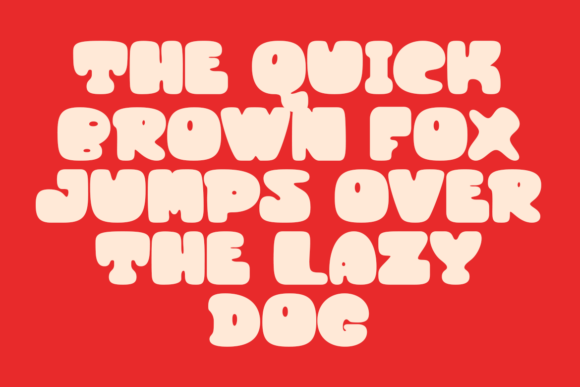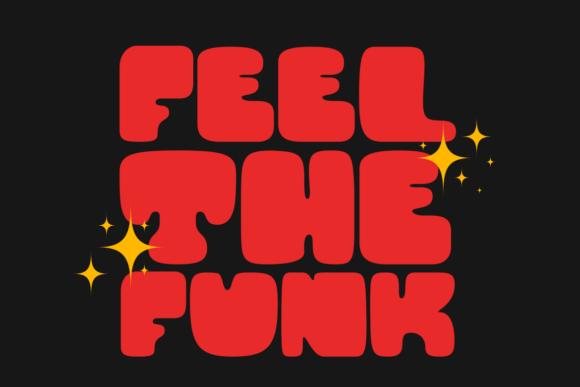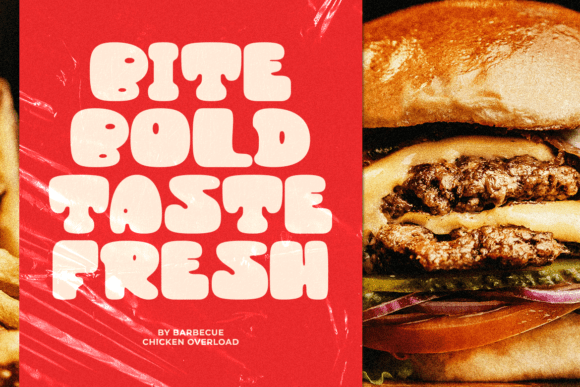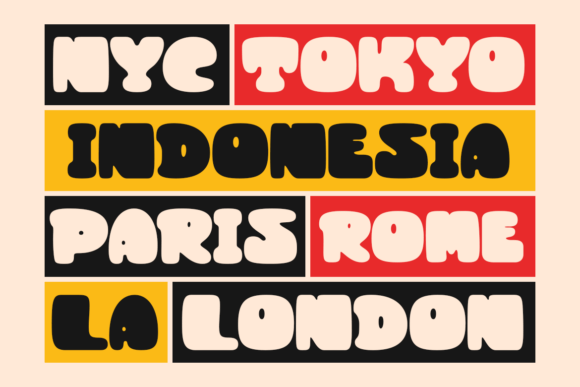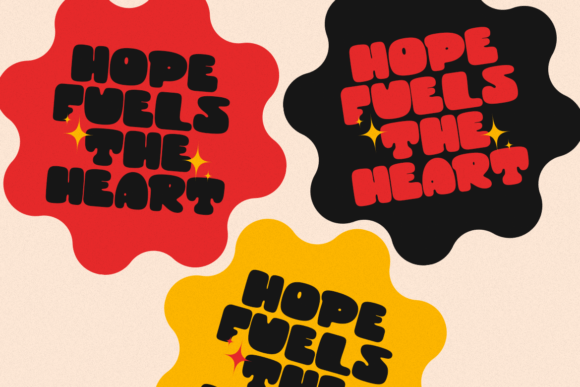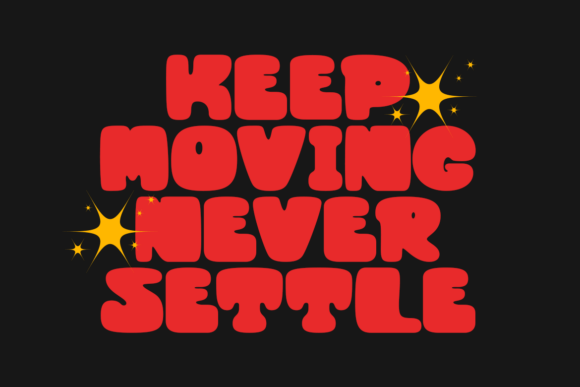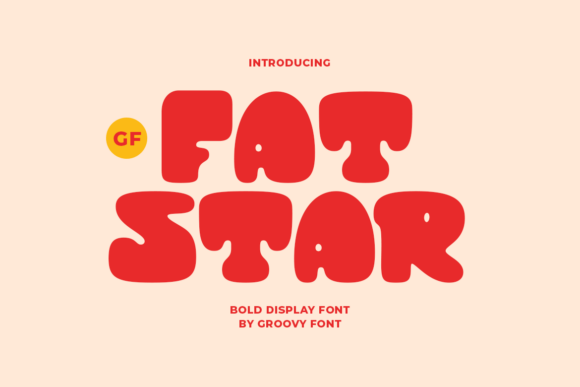
Introducing GF Fatstar Font: The Ultimate Bold Display Font for Creative Projects
Are you tired of using the same old fonts in your creative projects? Look no further than GF Fatstar Font, a bold display font that is sure to make a statement. With its cheerful and unique appearance, GF Fatstar is the perfect choice for designers and crafters who want to add a touch of playfulness to their work.
What is GF Fatstar Font?
GF Fatstar is a bold display font that is known for its striking design and cheerful appearance. This font is perfect for creative projects that call for a strong visual impact, such as posters, flyers, and social media graphics. With its bold and eye-catching design, GF Fatstar is sure to catch the eye and leave a lasting impression.
Key Features of GF Fatstar Font
- Bold and Striking Design: GF Fatstar has a bold and striking design that is sure to make a statement in any creative project.
- Cheerful and Unique Appearance: This font has a cheerful and unique appearance that adds a touch of playfulness to any design.
- Perfect for Display Text: GF Fatstar is perfect for display text, such as headings and titles, where a bold and eye-catching font is needed.
- Easy to Read: Despite its bold design, GF Fatstar is easy to read, even at smaller sizes.
Uses of GF Fatstar Font
GF Fatstar is a versatile font that can be used in a variety of creative projects, including:
- Posters and Flyers: Use GF Fatstar to create eye-catching posters and flyers that grab attention.
- Social Media Graphics: Add a touch of playfulness to your social media graphics with GF Fatstar.
- Logos and Branding: Use GF Fatstar to create bold and eye-catching logos and branding materials.
- Signage and Displays: GF Fatstar is perfect for signage and displays where a bold and eye-catching font is needed.
Why Choose GF Fatstar Font?
There are many reasons why GF Fatstar is the perfect choice for your creative projects. Here are just a few:
- Unique and Eye-Catching Design: GF Fatstar has a unique and eye-catching design that is sure to make a statement.
- High-Quality Design: This font is designed to high-quality standards, ensuring that it looks great in any project.
Tips for Using GF Fatstar Font
Here are a few tips for using GF Fatstar in your creative projects:
- Use it for Display Text: GF Fatstar is perfect for display text, such as headings and titles.
- Pair it with a Simple Font: Pair GF Fatstar with a simple font for body text to create a striking contrast.
- Experiment with Colors: GF Fatstar looks great in a variety of colors, so don’t be afraid to experiment.
- Use it to Create Emphasis: Use GF Fatstar to create emphasis in your design, such as highlighting a special offer or promotion.
GF Fatstar is a bold display font that is sure to make a statement in any creative project. With its cheerful and unique appearance, it’s the perfect choice for designers and crafters who want to add a touch of playfulness to their work. Whether you’re creating posters, flyers, social media graphics, or logos, GF Fatstar is the perfect font for you.